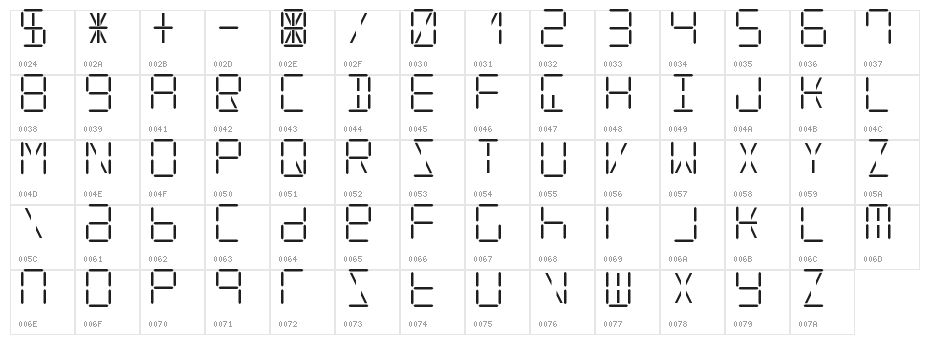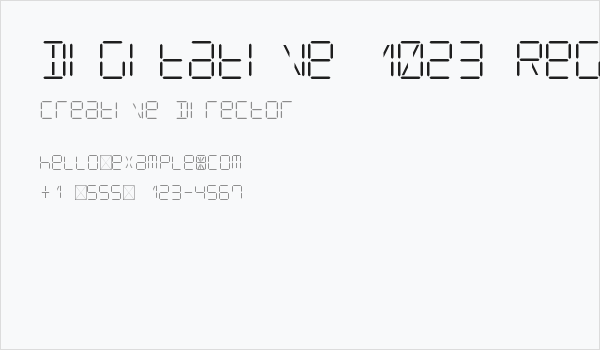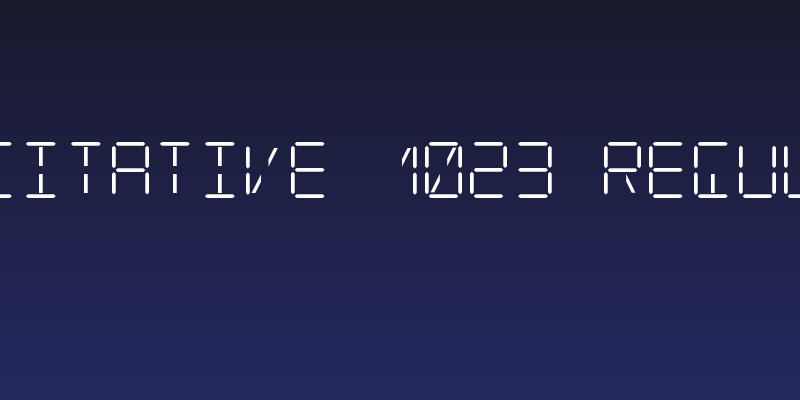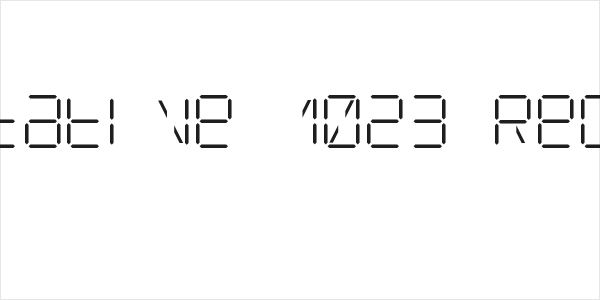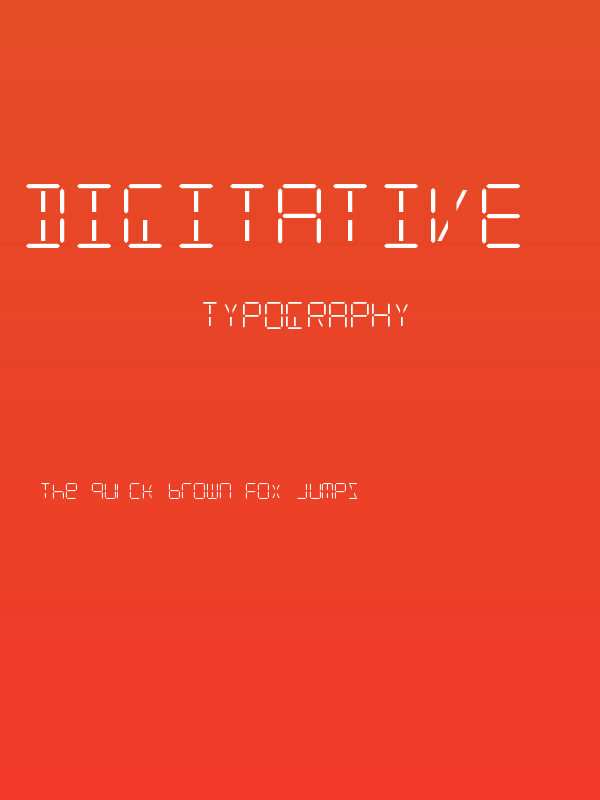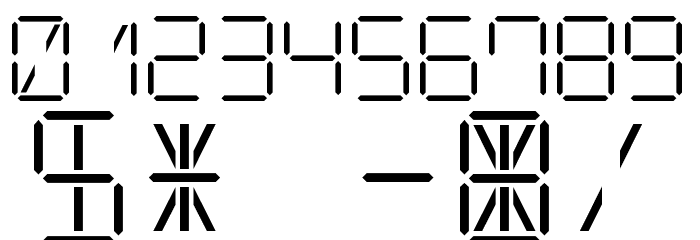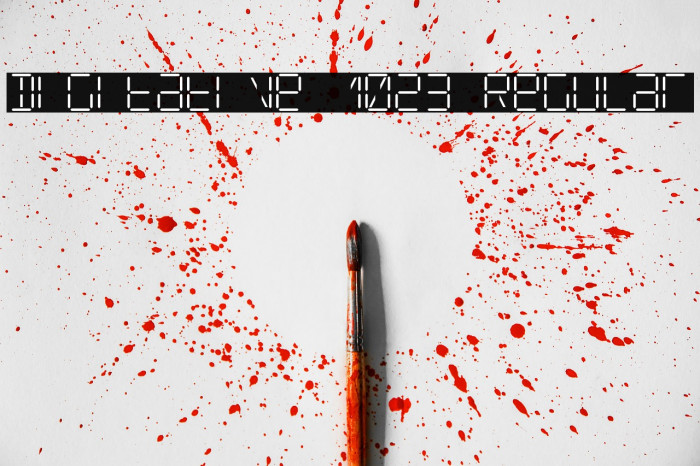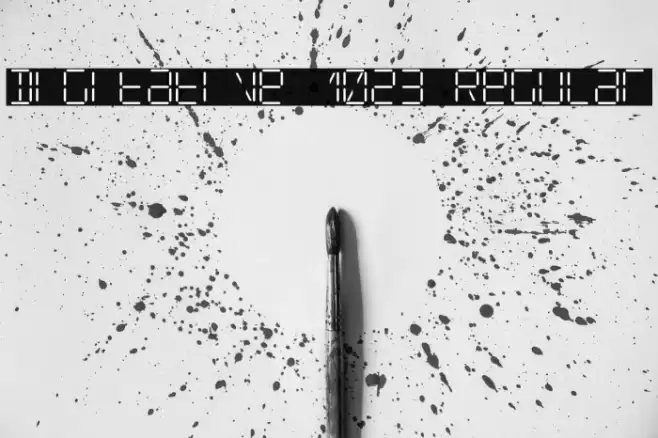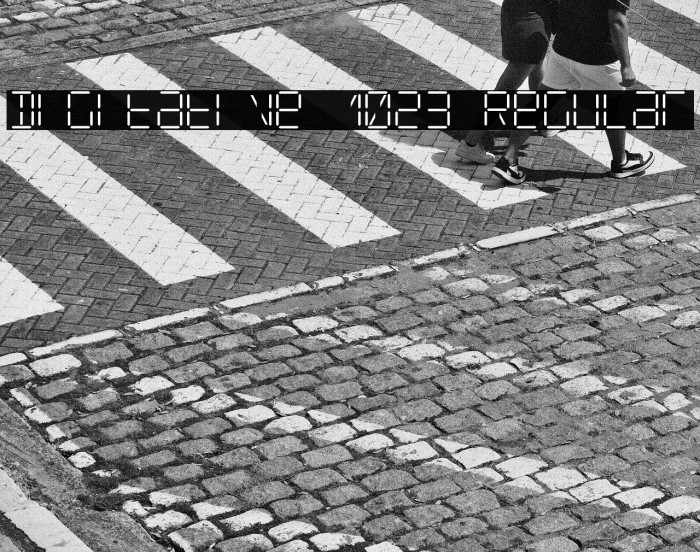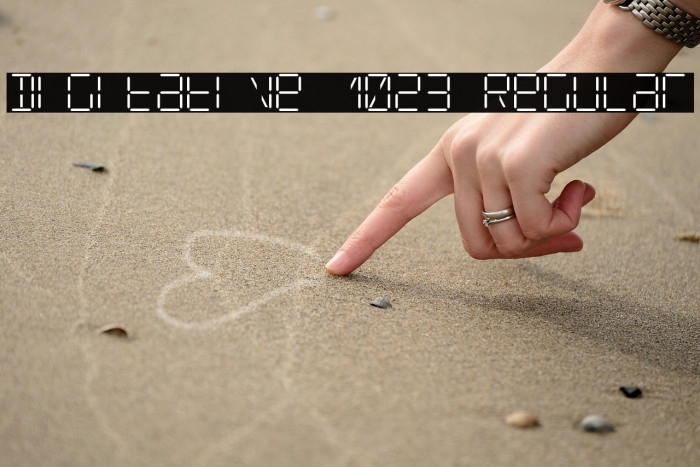
Digitative 1023 Regular Font
| Gesamtstil | Futuristic |
| Vorgeschlagene Projekte | Ideal for digital displays, tech-themed posters, retro designs, and futuristic branding. |